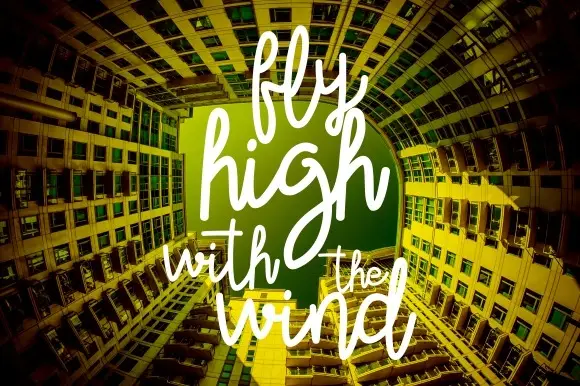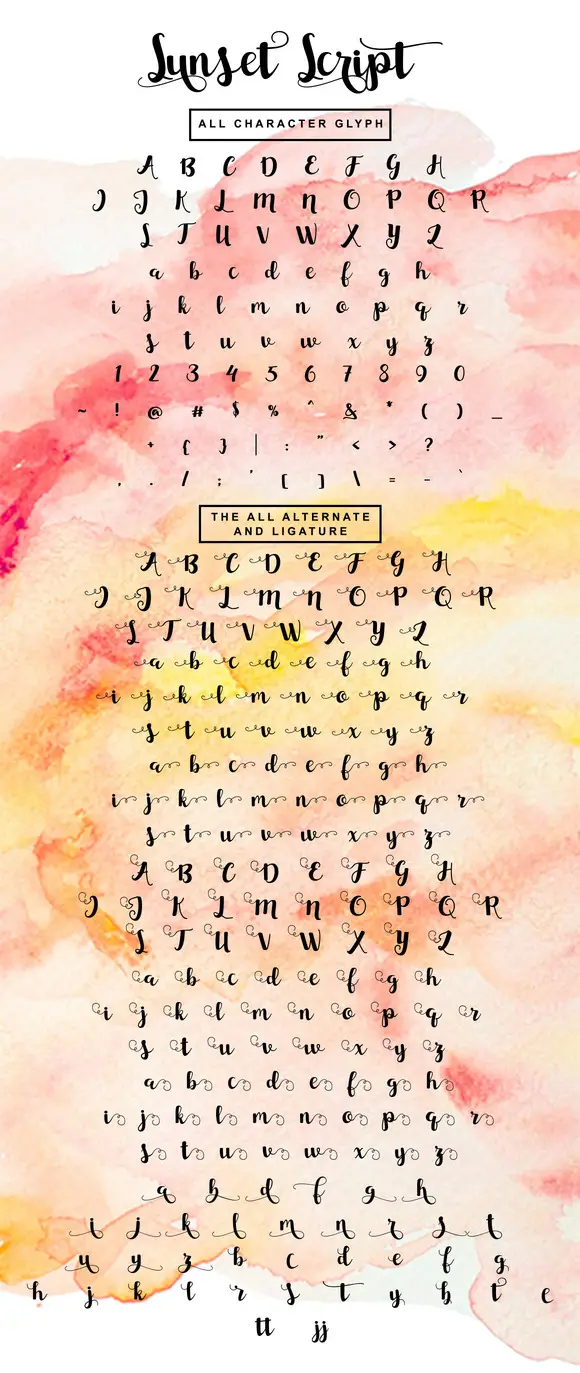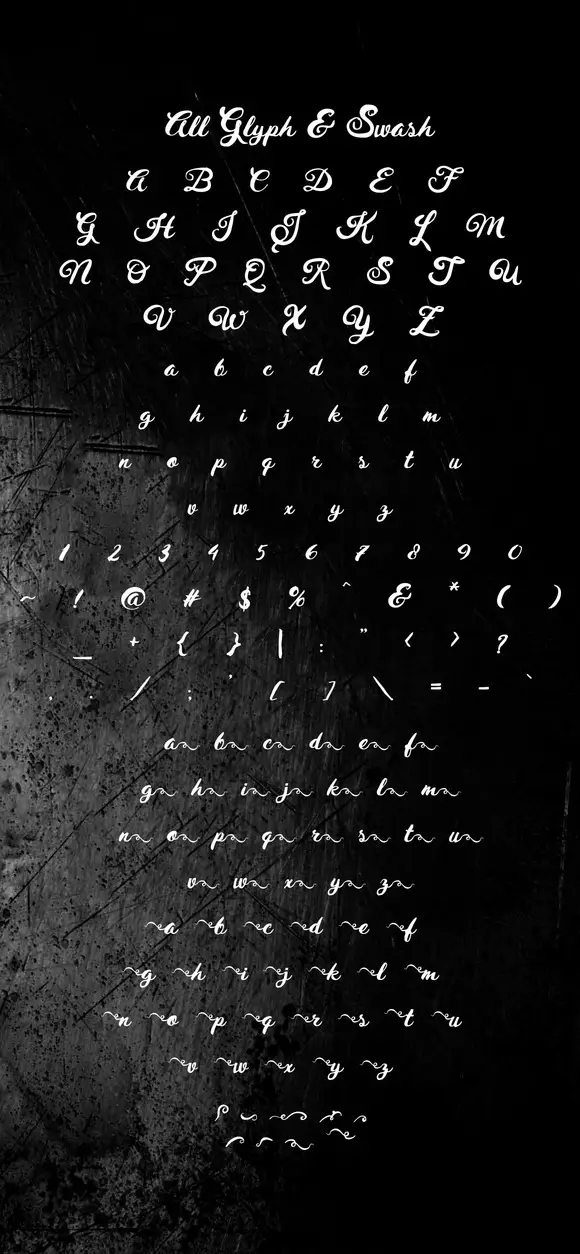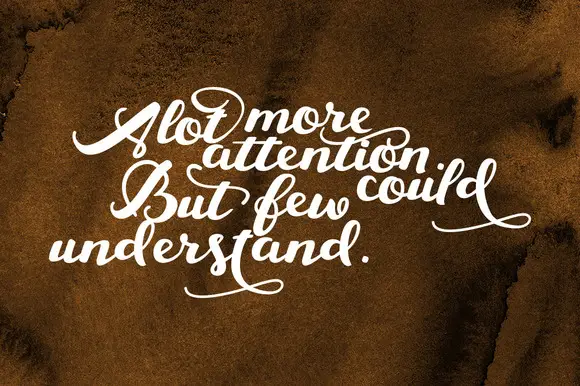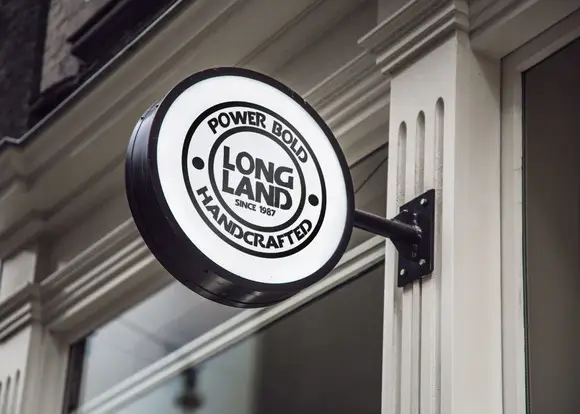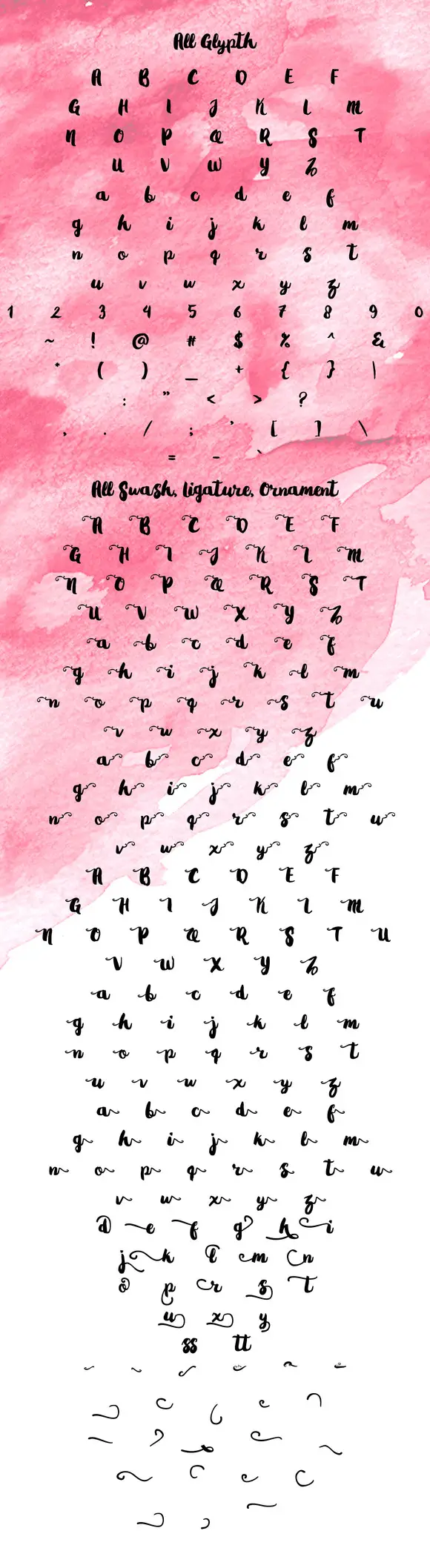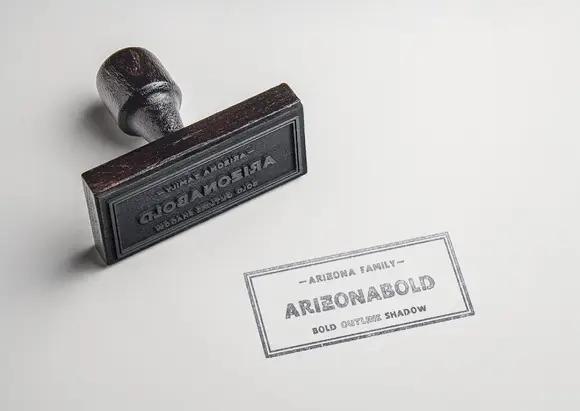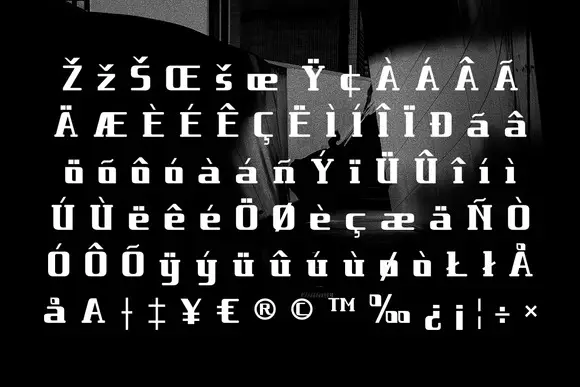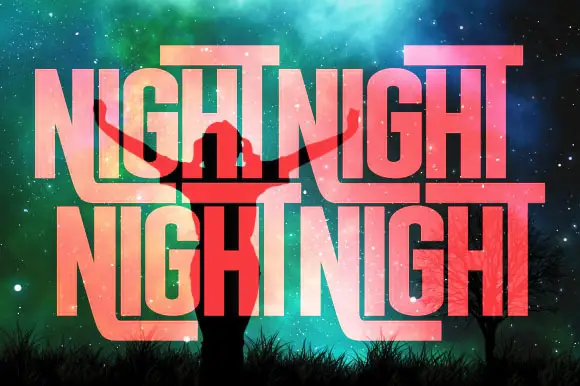
Big Sale 31 Font
The Big Sale 31 Font is a versatile and eye-catching typeface designed to make your projects stand out. With its bold and dynamic style, this font is perfect for a variety of applications, including branding, logos, web design, and print materials.
• Multiple weights for flexibility
• Clear and legible design
• Ideal for headlines and promotional materials
• Unique character set for creative expression
• Great for promotional graphics and advertisements
• Use in website headers and banners for a striking effect
• Perfect for creating impactful social media posts